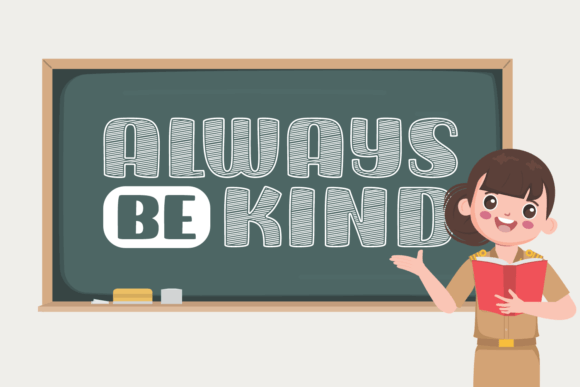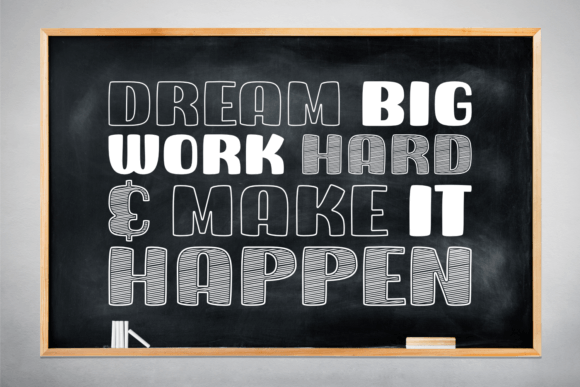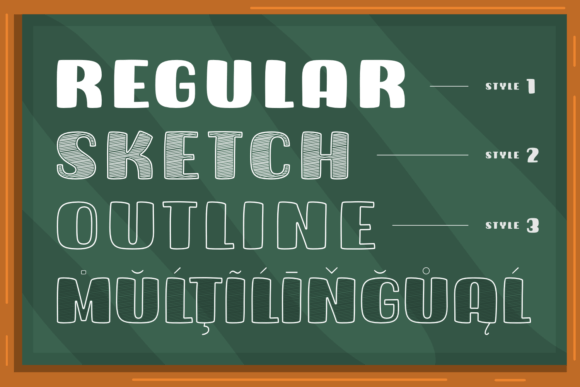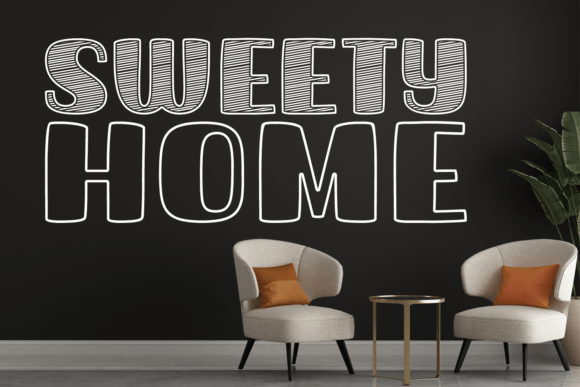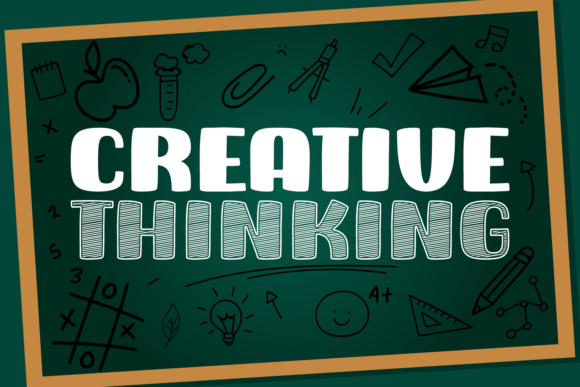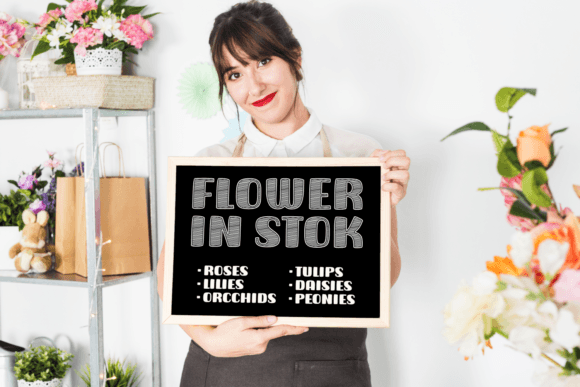
Introduction to Make It Happen Font
You’ve got that spark of creativity – the idea for a project that’s been buzzing in your head for days. You can almost see it come to life, but something’s missing. That’s where the perfect design resource comes in, and for many, that’s the Make It Happen Font. This incredibly cool display font has the potential to elevate your creative ideas to new heights.
| 👤 Author | Situjuh |
With its modern yet whimsical style, the Make It Happen Font is the perfect tool to help you bring your vision to life. Whether you’re working on a high-profile project or just need a fun way to express yourself, this font is a valuable asset for any designer. Its versatility and high-quality design make it a go-to choice for those seeking a unique touch.
Key Features of Make It Happen Font
- Unique and Creative Design: The Make It Happen Font is designed to add a touch of creativity to any project, making it a valuable design resource for artists and designers.
- Transparent Background: This font features a transparent background, allowing for easy customization and flexibility when working with different design elements.
- High-Quality Typography: The Make It Happen Font is crafted with high-quality typography, ensuring that it looks professional and polished in any application.
- High Resolution: The Make It Happen Font is designed at a high resolution, making it suitable for use in large-scale designs, such as billboards and posters.
- Perfect for Creative Projects: Whether you’re working on a personal project or a commercial design, the Make It Happen Font is an excellent choice for adding a unique touch to your creative project.
Honest Review: Make It Happen Font
As a designer, I’m always on the lookout for reliable design resources that can elevate my creative projects. The Make It Happen Font is one such resource that caught my attention. ✨
Here’s what I like about it:
- High-quality typography that’s perfect for headings and titles
- Transparent background, allowing for seamless integration with any design
- Great for creating a sense of energy and motivation in a design
- ⚠️ Limited font sizes and styles, which may not be ideal for complex designs
- ⚠️ Not ideal for body text, as it may be too bold and overwhelming
Overall, I’d say the Make It Happen Font is a great addition to any designer’s toolkit. While it may have some limitations, its high-quality typography and transparent background make it a valuable resource for any creative project. If you’re looking for a font that’s sure to make an impact, the Make It Happen Font is definitely worth checking out.
Tips for Getting the Most Out of the Make It Happen Font
For the best results, use the Make It Happen Font in conjunction with other high-quality design elements. Experiment with different font sizes, colors, and styles to find the perfect combination for your creative project. You can also use the font in conjunction with a transparent background to create a seamless and professional look.
The Make It Happen Font is perfect for a wide range of creative projects, including business cards, brochures, and presentations. It’s also a great choice for designers looking to add a unique touch to their work. With its transparent background and high quality, the Make It Happen Font is a free download that’s sure to become a valuable design resource.